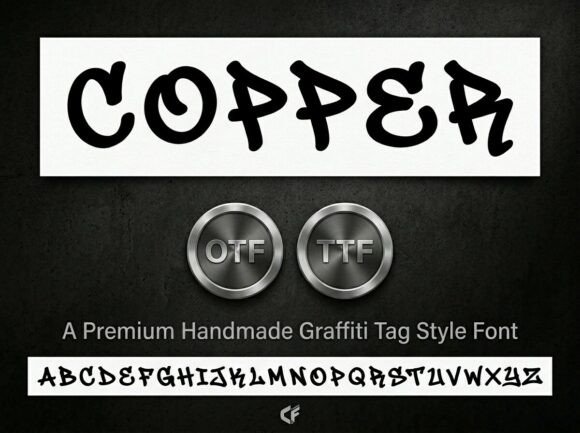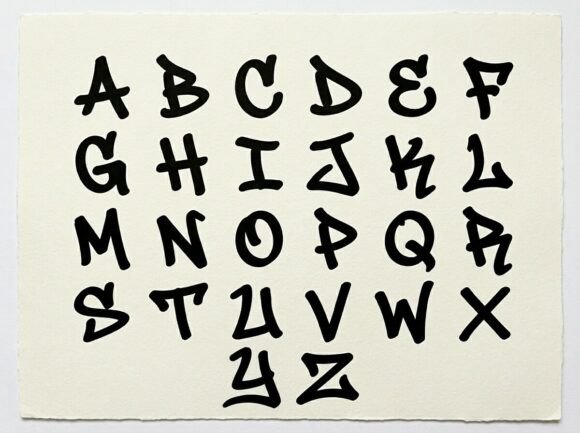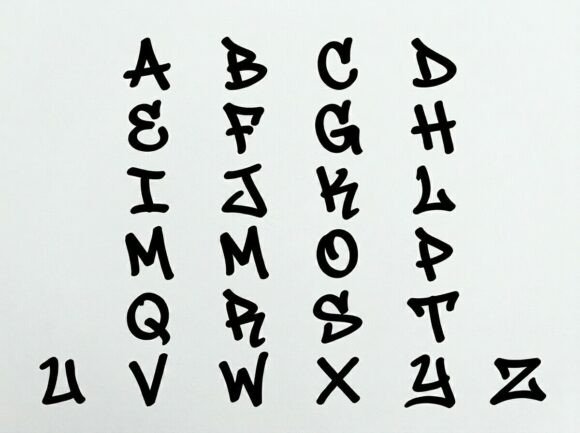
Copper Font: Elevate Your Designs with a Stunning Decorative Display Font
Are you tired of using the same old fonts in your designs? Do you want to add a touch of elegance and sophistication to your projects? Look no further than Copper Font, a beautiful decorative display font that’s sure to turn heads. In this article, we’ll take a closer look at Copper Font, its features, and how you can use it to take your designs to the next level.
What is Copper Font?
Copper Font is a stunning decorative display font designed to be the center of attention. With its unique artistic elements and strong visual personality, this font is perfect for creators who want to break away from the ordinary. Whether you’re a designer, crafters, or DIY enthusiast, Copper Font is a versatile font that can be used for a variety of projects, from bold headlines and artistic logos to creative packaging.
Key Features of Copper Font
- Unique Artistic Elements: Copper Font features unique artistic elements that set it apart from other fonts. Each letter is carefully crafted to make a statement, making it perfect for high-impact headlines, logos, and decorative initials.
- Strong Visual Personality: This font has a strong visual personality that adds a touch of elegance and sophistication to any design.
- Versatile: Copper Font is versatile enough for use in a variety of projects, from bold headlines and artistic logos to creative packaging.
- Professional and Polished Finish: Despite its decorative nature, Copper Font maintains a professional and polished finish, making it suitable for use in high-end designs.
Before purchasing Copper Font, it’s essential to note that this font is an ALL-CAPS (Uppercase Only) display typeface. It does not include lowercase letters. This means that it’s specifically designed for high-impact headlines, logos, and decorative initials where every letter is a work of art.
Who is Copper Font for?
Copper Font is perfect for:
- Designers: Graphic designers, branding experts, and UI/UX designers who want to add a touch of elegance and sophistication to their designs.
- Crafters: Crafters, makers, and DIY enthusiasts who want to create beautiful and unique projects, such as handmade cards, invitations, and signs.
- Business Owners: Business owners who want to create a strong brand identity with a unique and memorable logo or headline.
How to Use Copper Font
Using Copper Font is easy. Here are a few tips to get you started:
- Use it for Headlines: Copper Font is perfect for creating bold and eye-catching headlines that grab attention.
- Create a Logo: Use Copper Font to create a unique and memorable logo that reflects your brand’s personality.
- Add it to Your Packaging: Add a touch of elegance and sophistication to your packaging with Copper Font.
Copper Font is a stunning decorative display font that’s perfect for designers, crafters, and business owners who want to add a touch of elegance and sophistication to their designs. With its unique artistic elements, strong visual personality, and versatility, Copper Font is a great addition to any design project. So why wait? Get Copper Font today and take your designs to the next level!